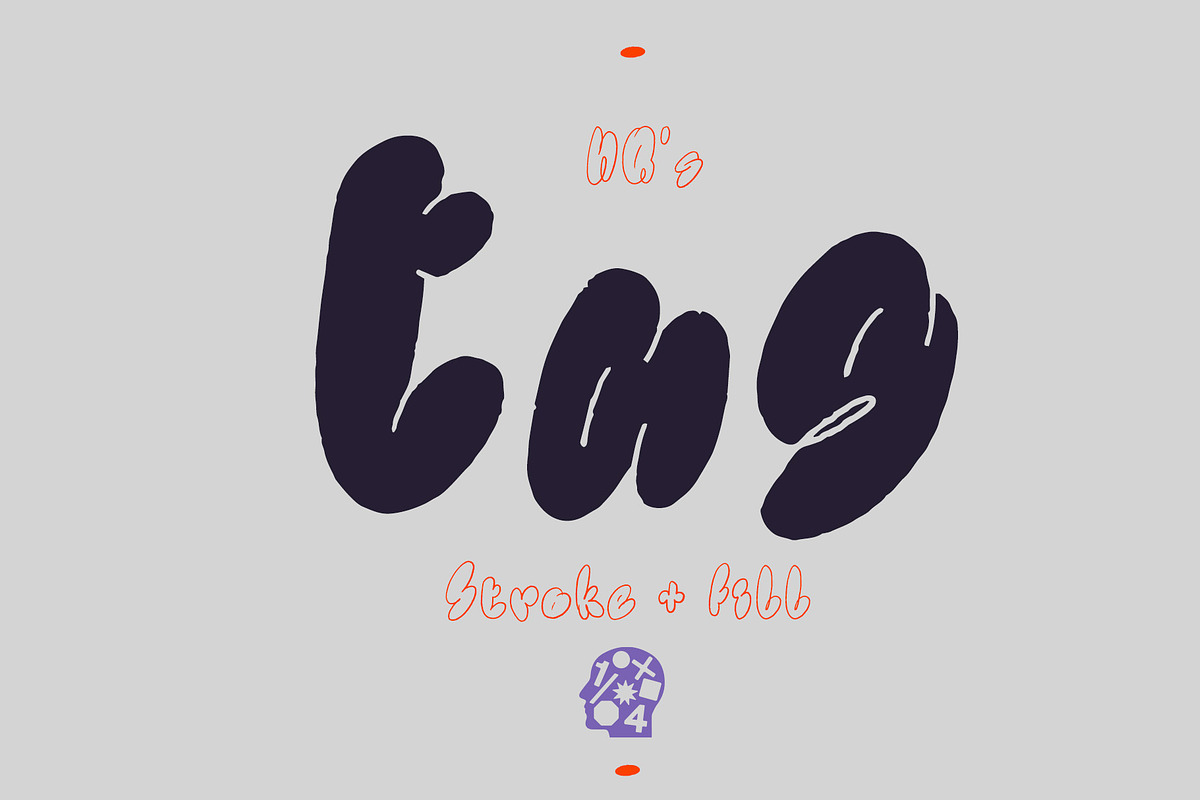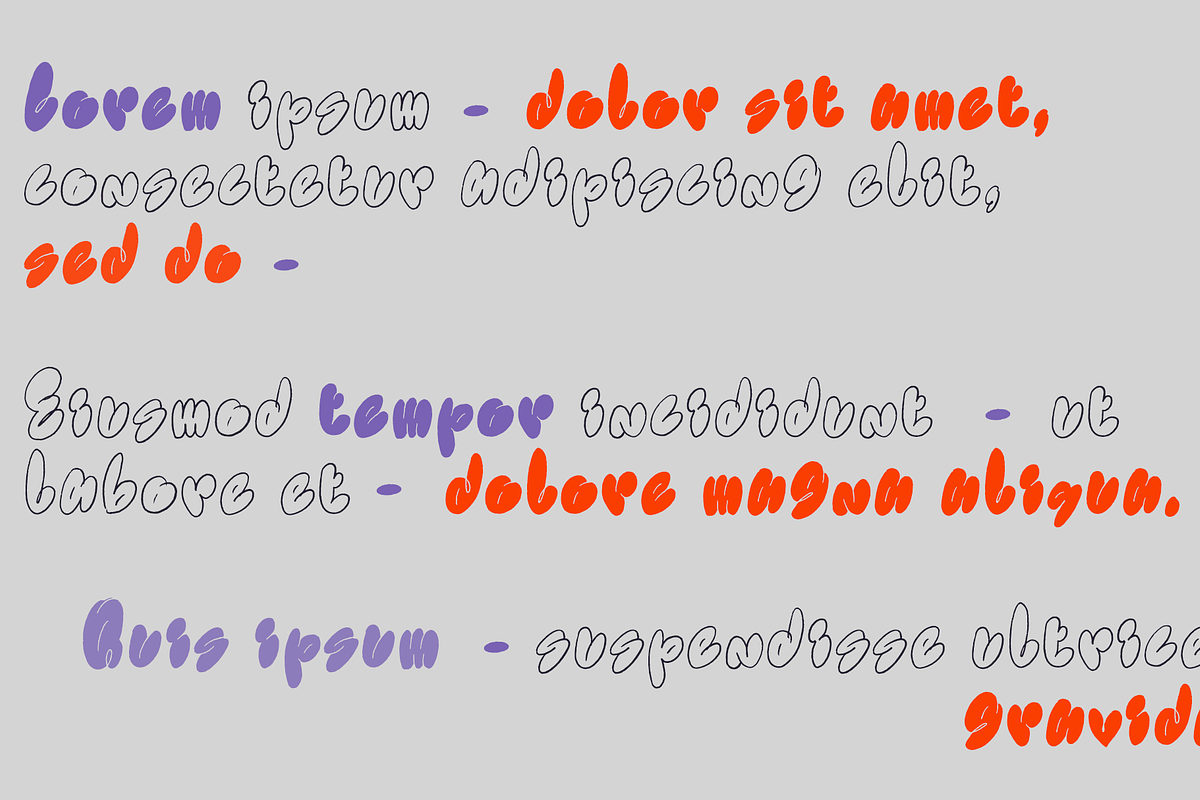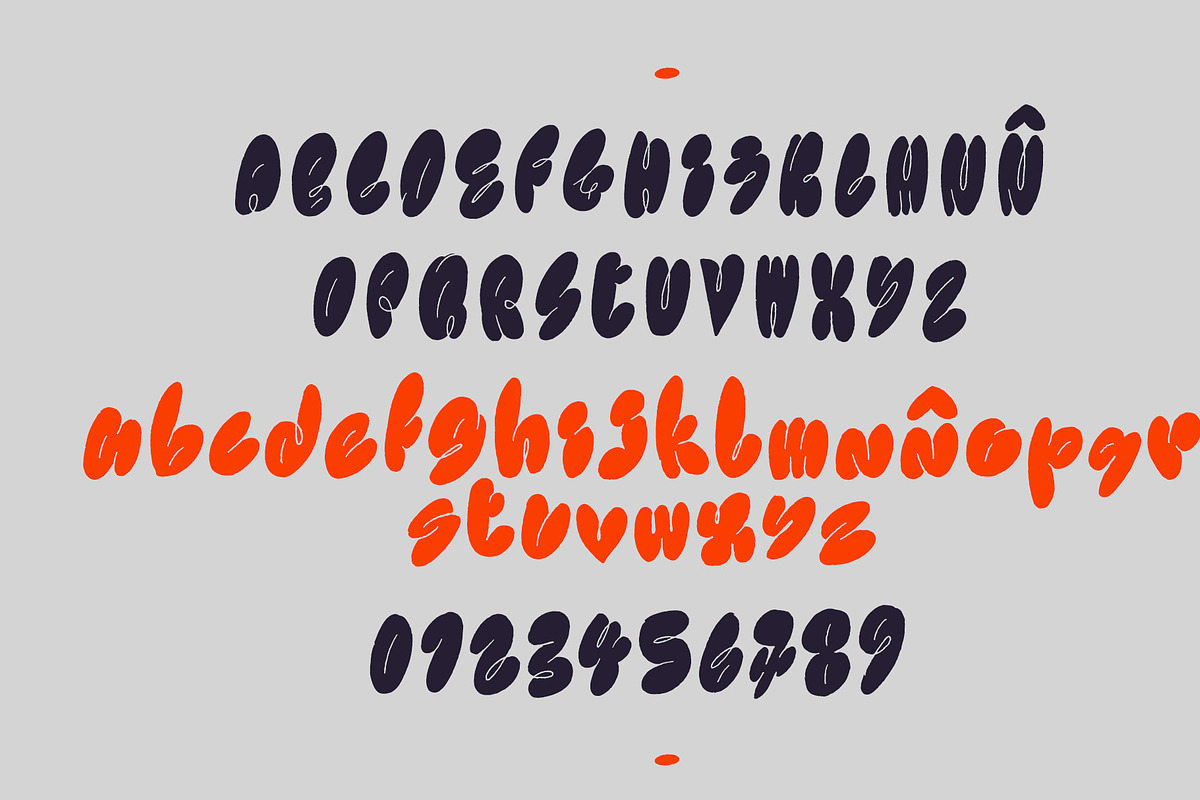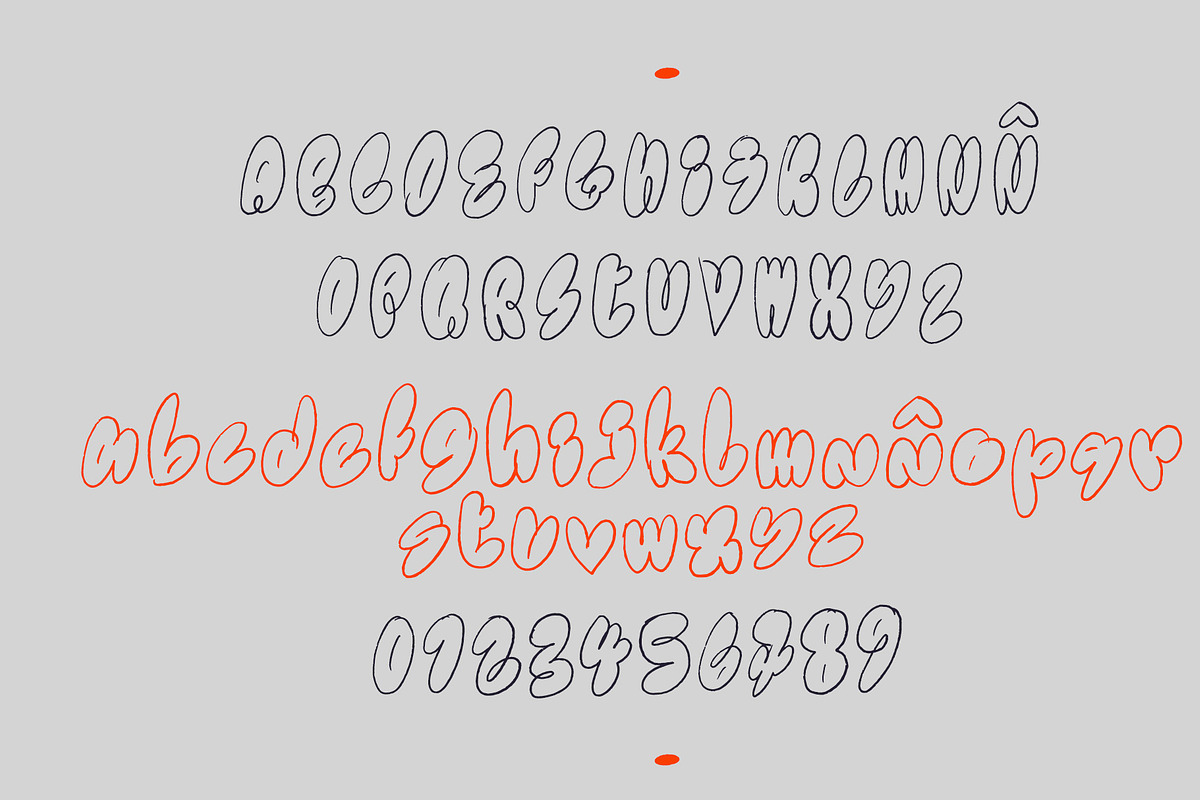
Tag
"Tag" is a strikingly original handmade display font that encapsulates the rebellious spirit and artistic flair of street graffiti. Crafted with a keen eye for urban aesthetics, this font embodies the raw, energetic strokes found in city murals and underground art scenes.
Each character in Tag bursts with personality, offering a blend of edginess and playfulness that's perfect for projects needing a touch of urban grit.
Whether it's for bold advertising, eye-catching apparel design, or standout social media graphics, Tag injects a dose of streetwise charm and creative spontaneity into your work, making it ideal for designs that aim to be unconventional and impactful.